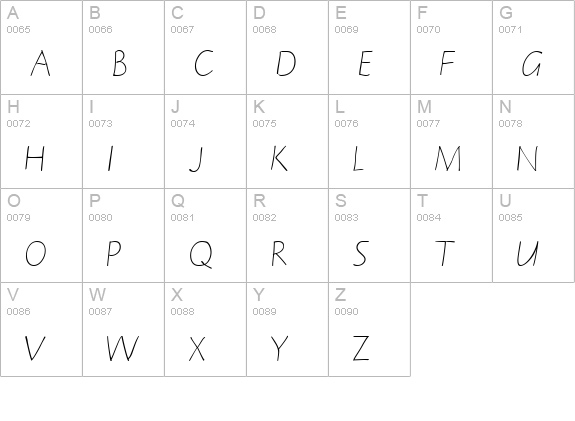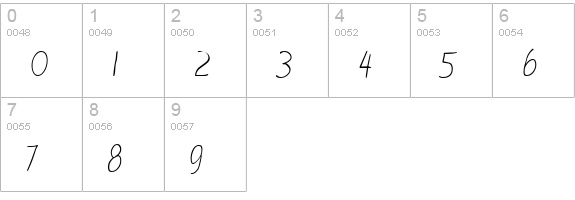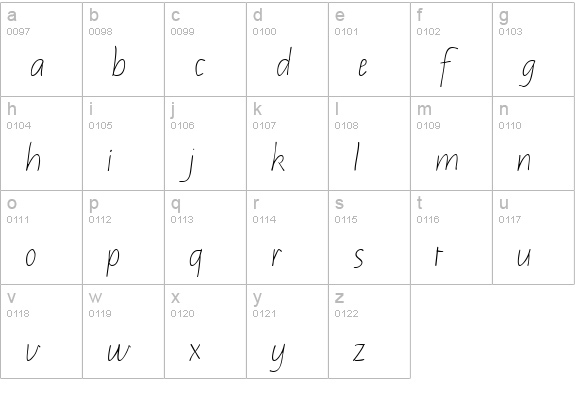
Notehand Regular is the standard, neutral variant in the Notehand typeface family \xE2\x80\x94 well suited to general body text, paragraphs, and standard typographic work.
Notehand Regular font is a charming and versatile typeface that exudes a sense of warmth and friendliness. Its flowing strokes and elegant curves make it perfect for a wide range of design projects, from invitations to posters to branding materials. The effortless readability and classic appeal of Notehand Regular font make it a timeless choice that will never go out of style. Best of all, this beautiful font is available for free download at FontsMarket.com. Don't miss out on the opportunity to add this delightful typeface to your collection and elevate your designs with its unique charm and grace.